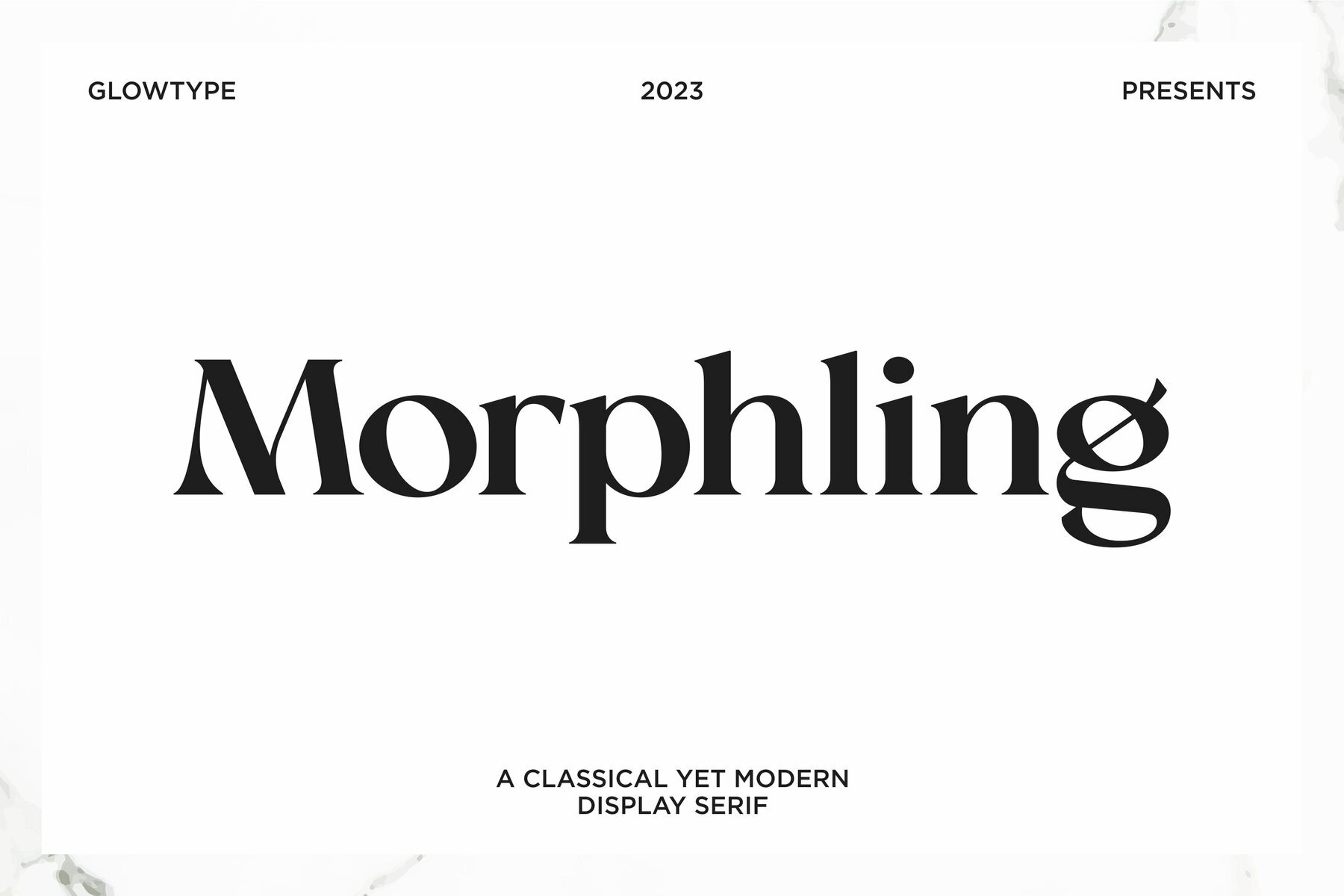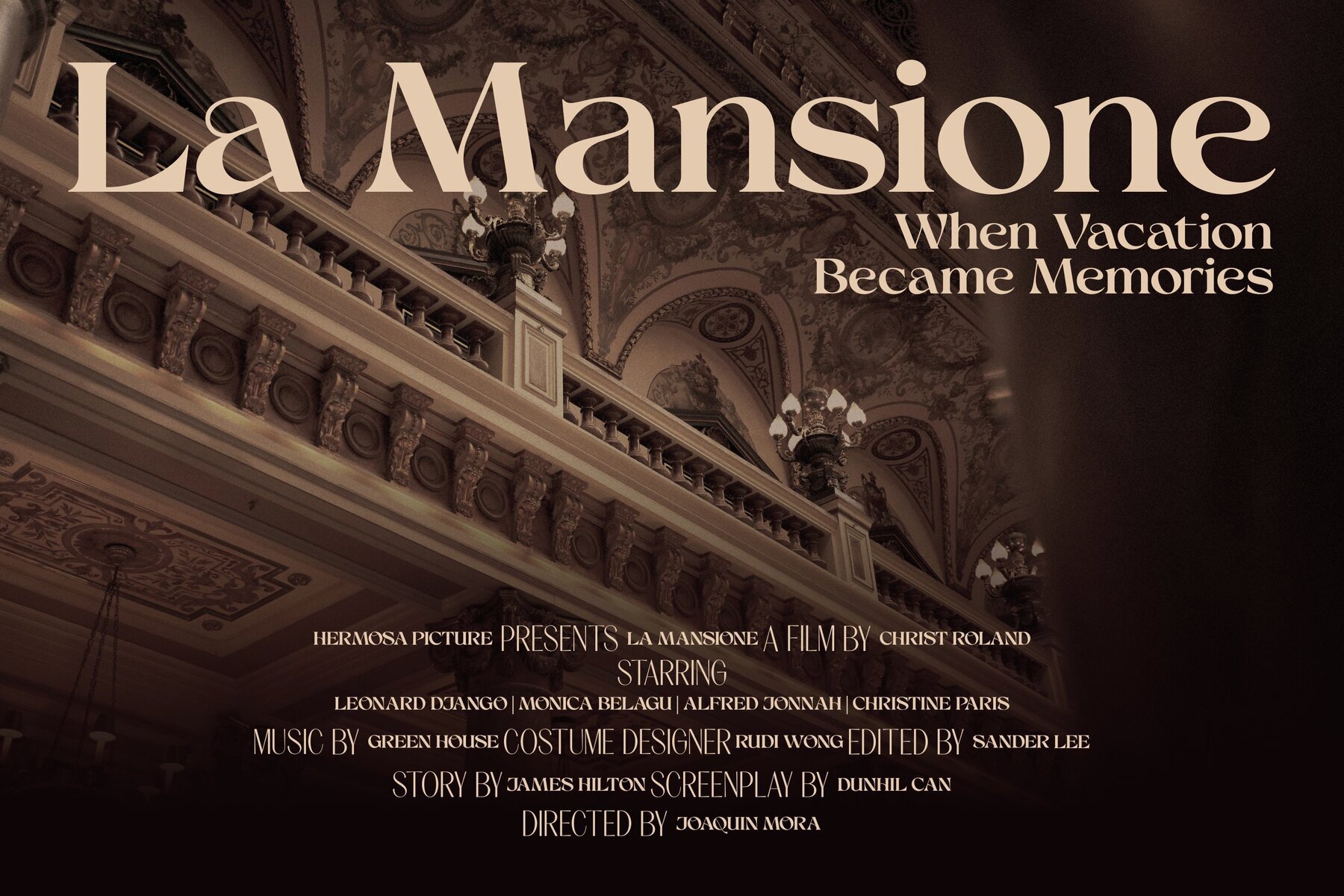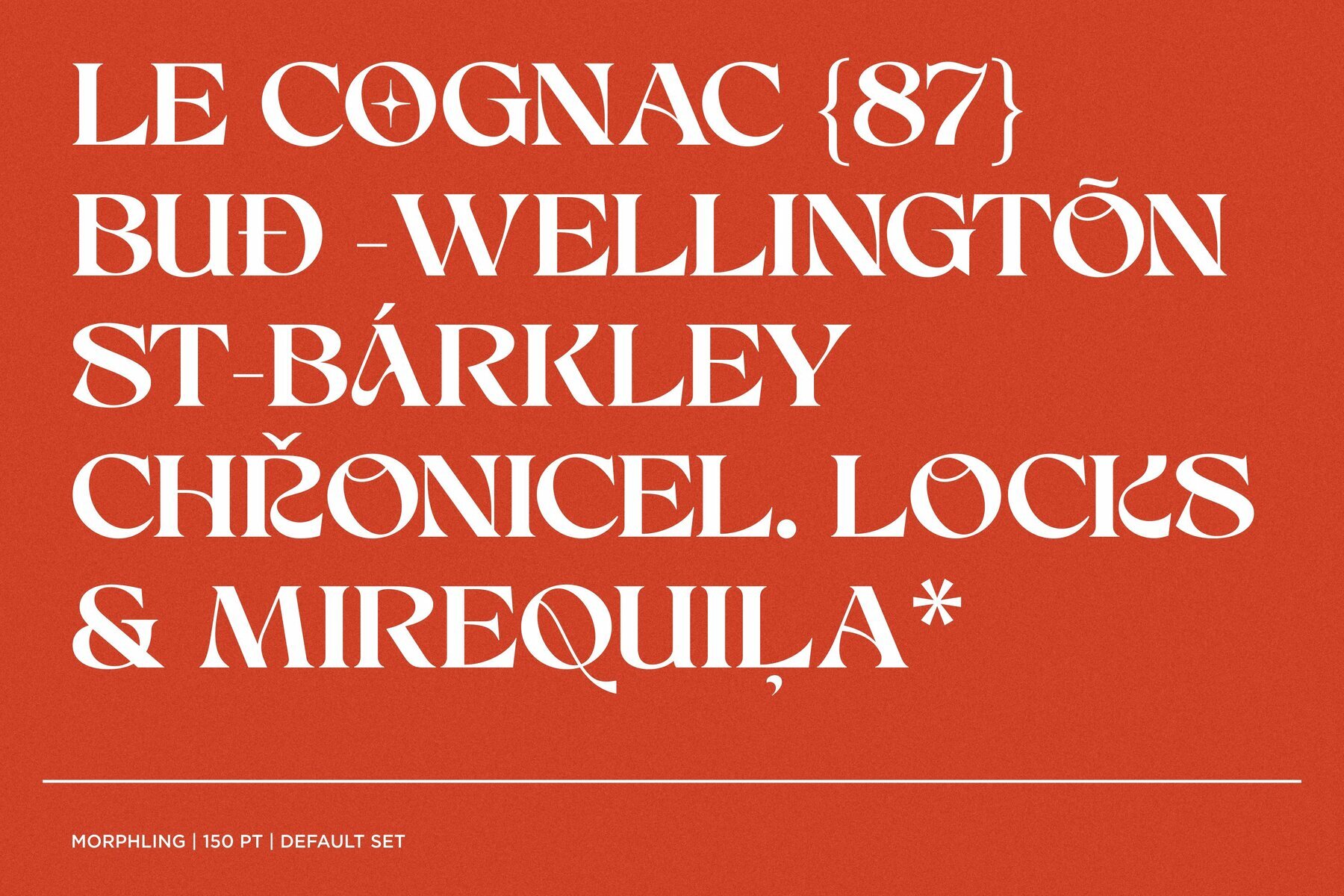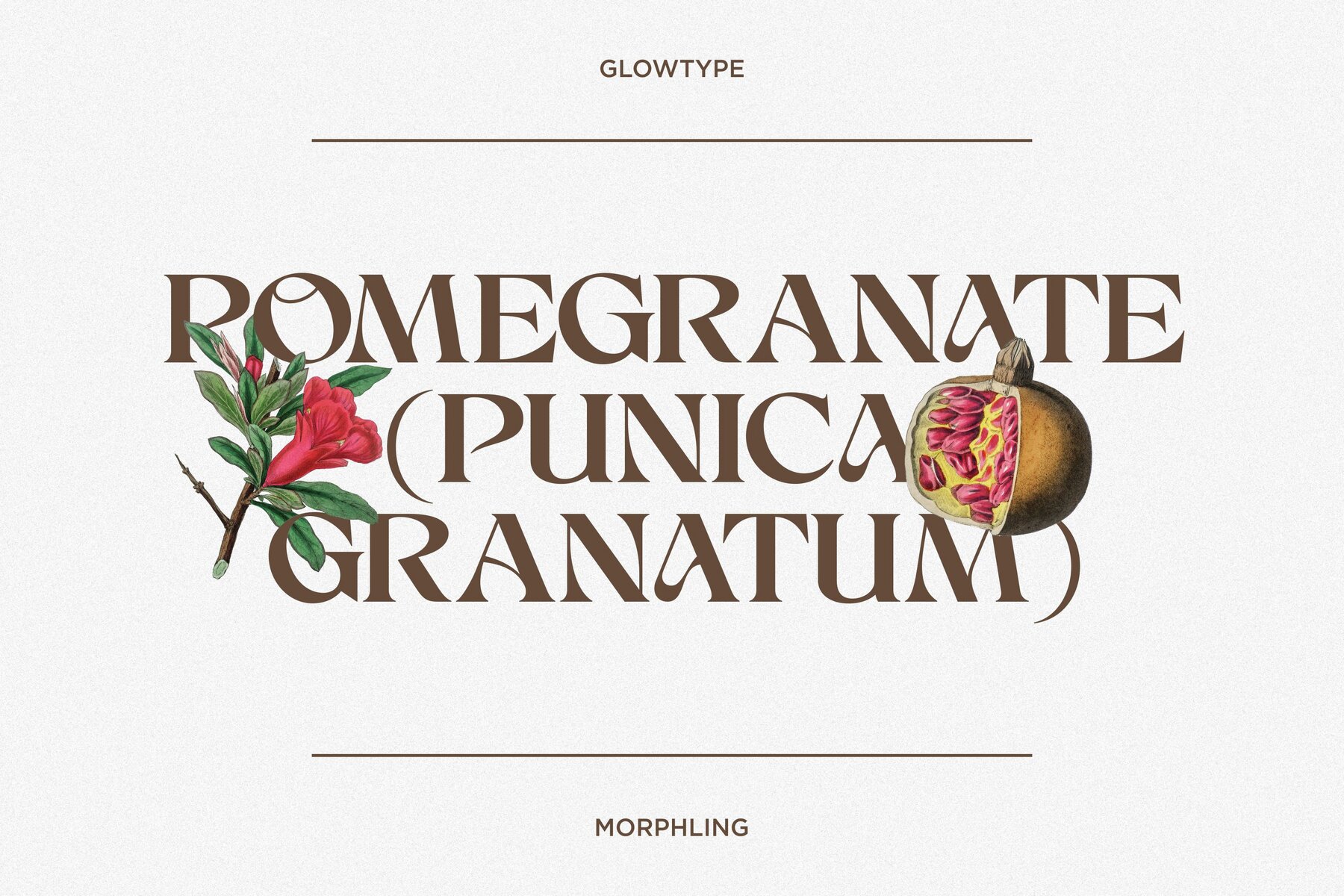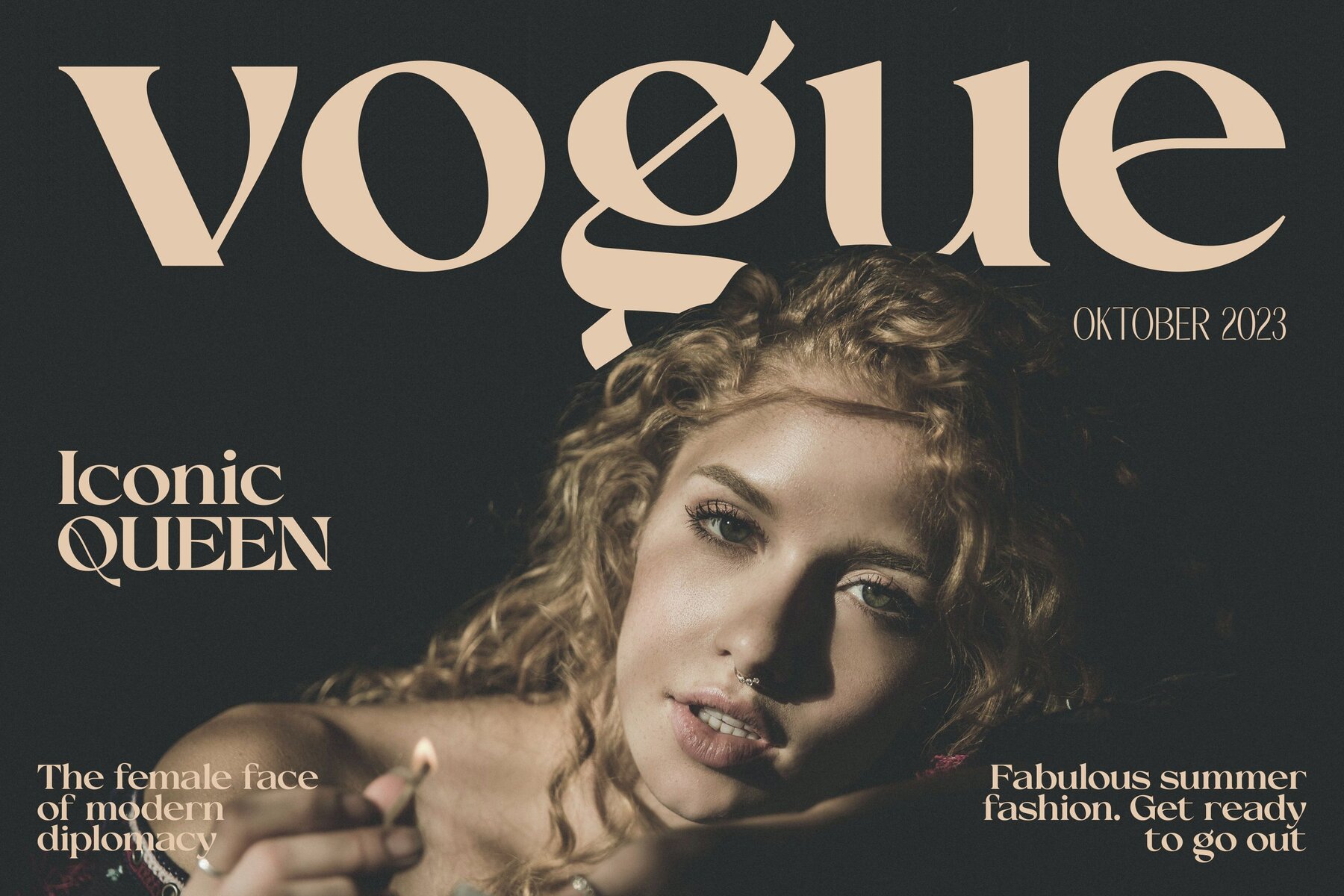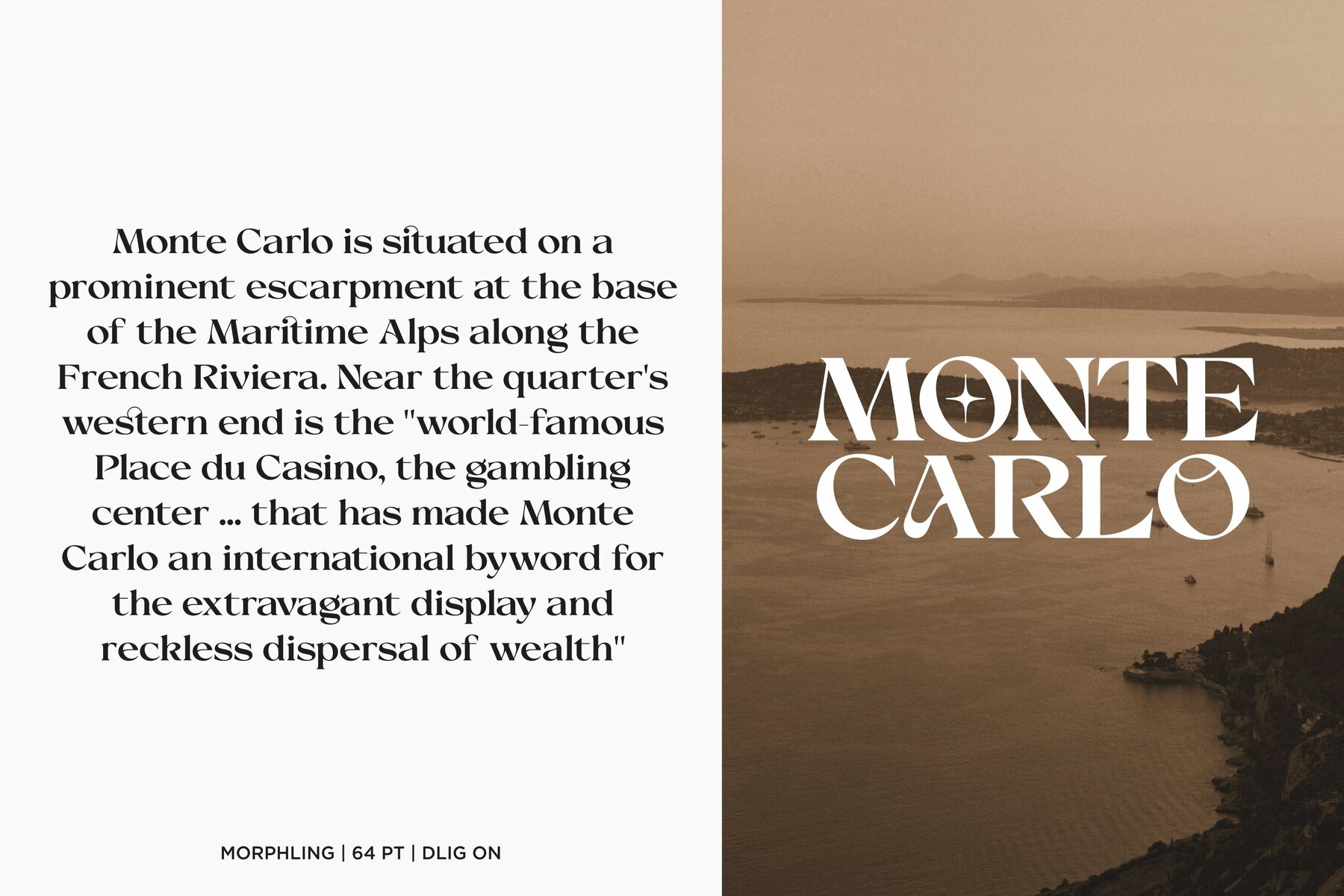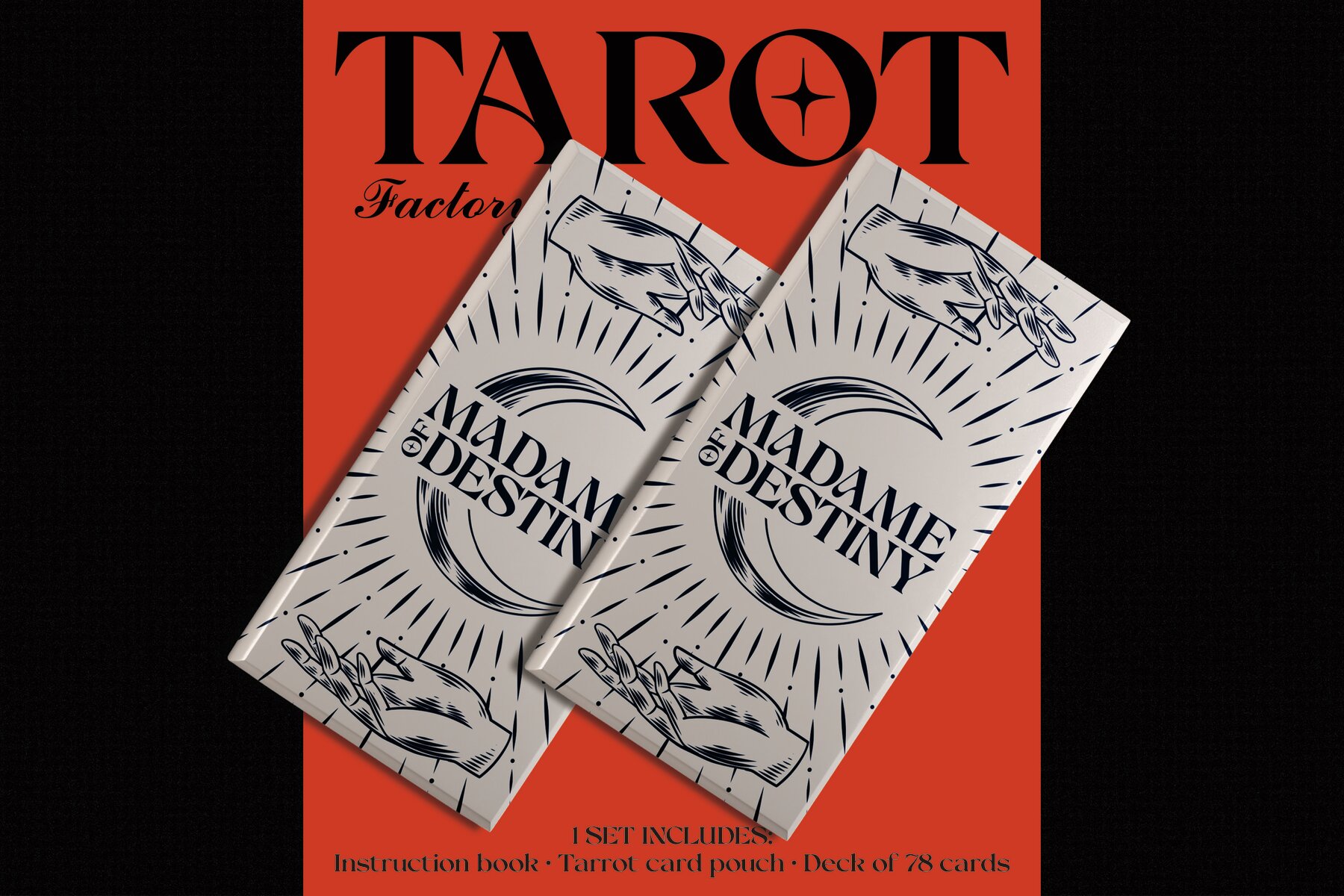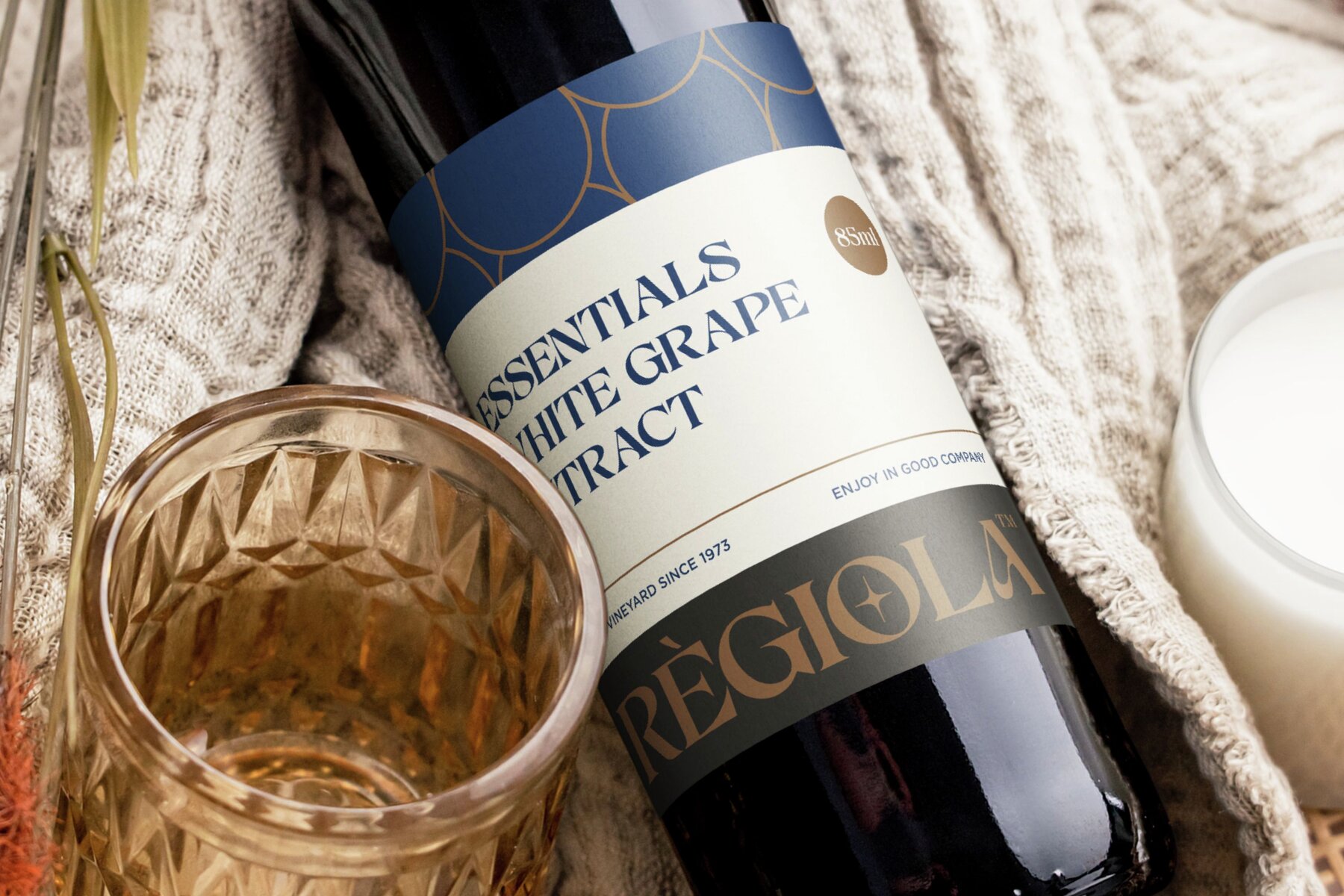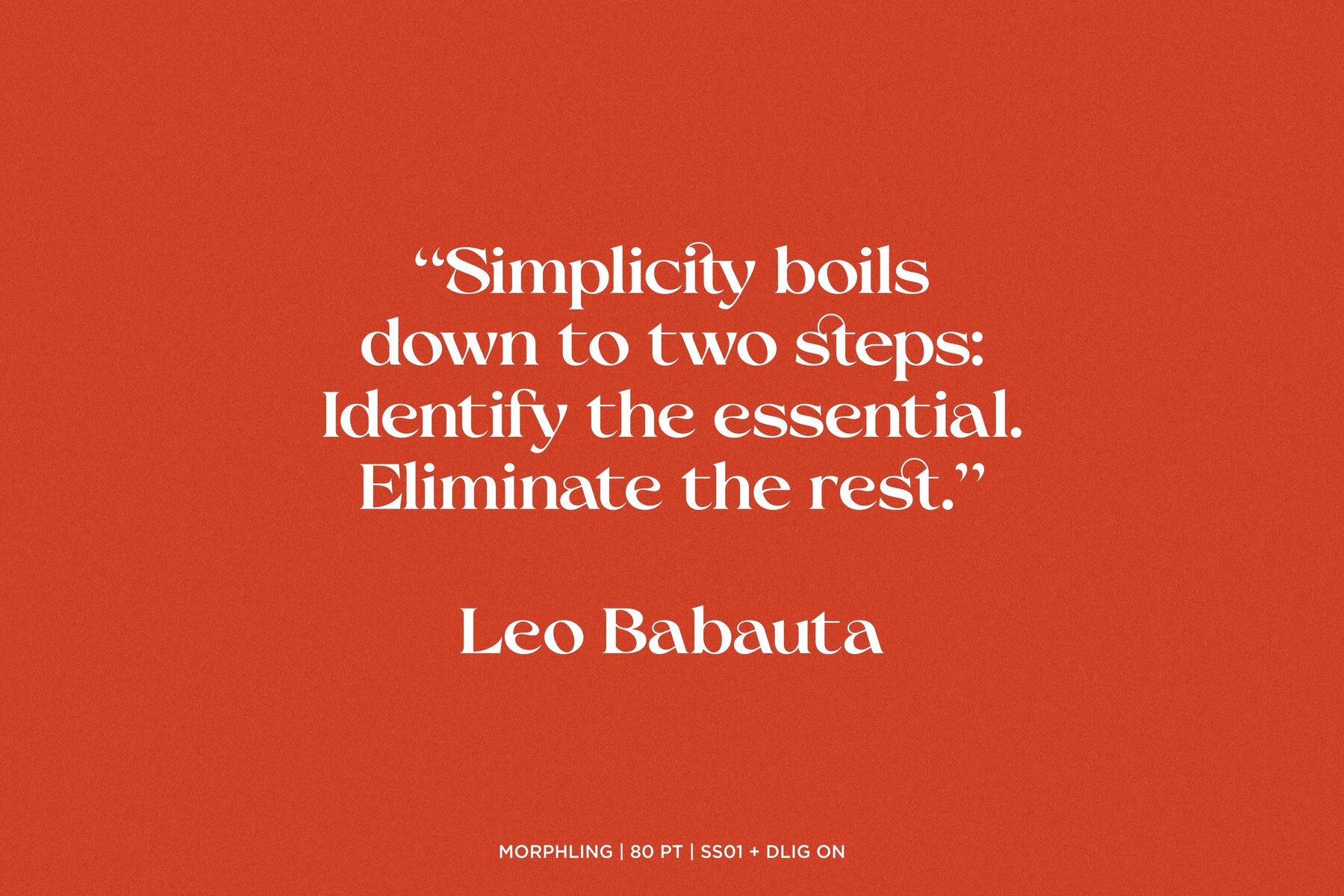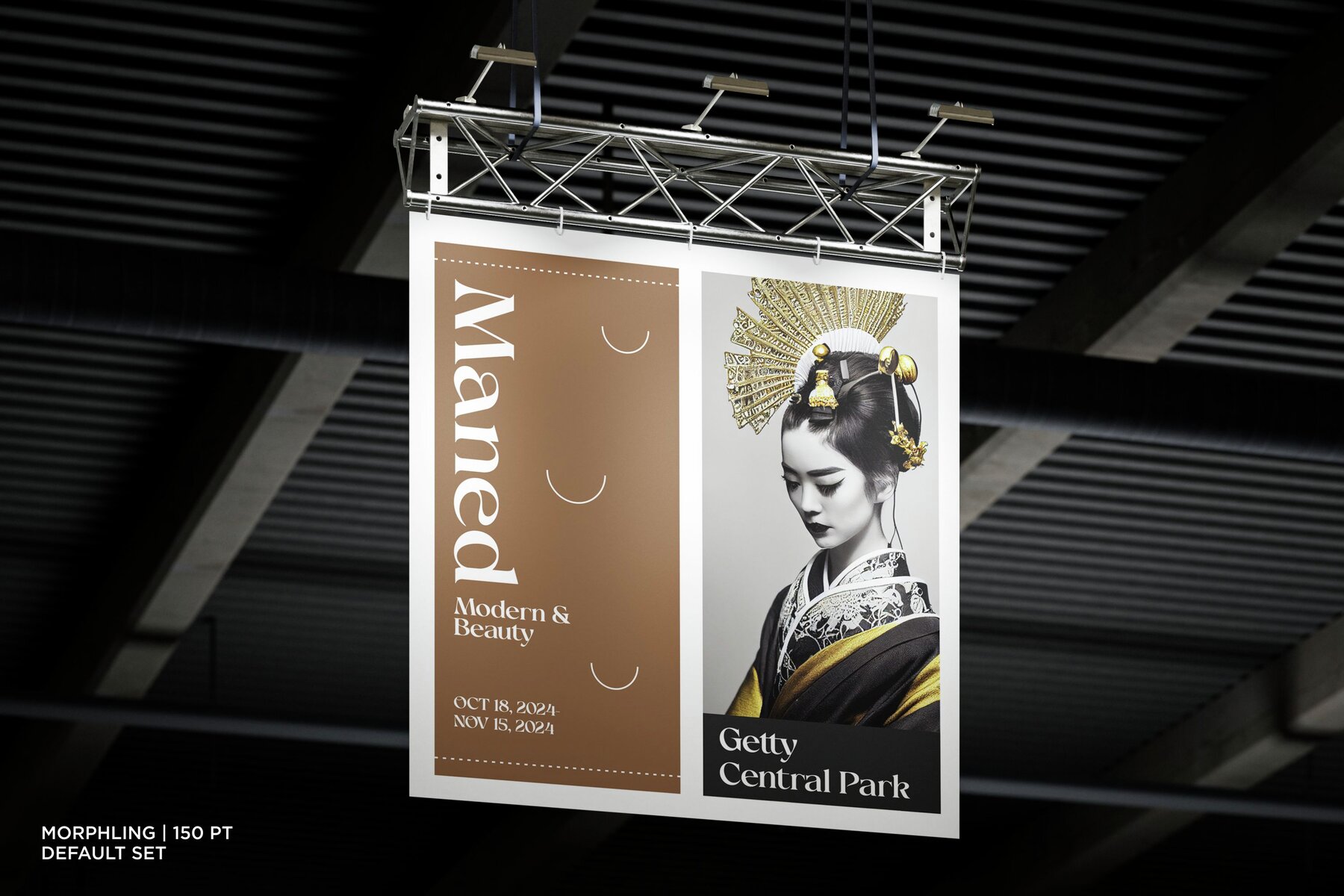
Morphling Font
Morphling Regular
Morphling is a distinctive serif font family that bridges the past with the present. This typeface embodies a fusion of classic modern serif aesthetics, infused with a psychedelic twist, offering a fresh perspective on traditional serif typography. Ideal for a wide range of display applications, Morphling shines in editorial projects and logo designs. Its versatility extends to music album covers, apparel branding, product packaging, and magazine headlines. Additionally, it serves as a stylish text overlay for any background image, giving a distinct edge to visual compositions.Morphling: Modern Display Serif with Psychedelic Influence